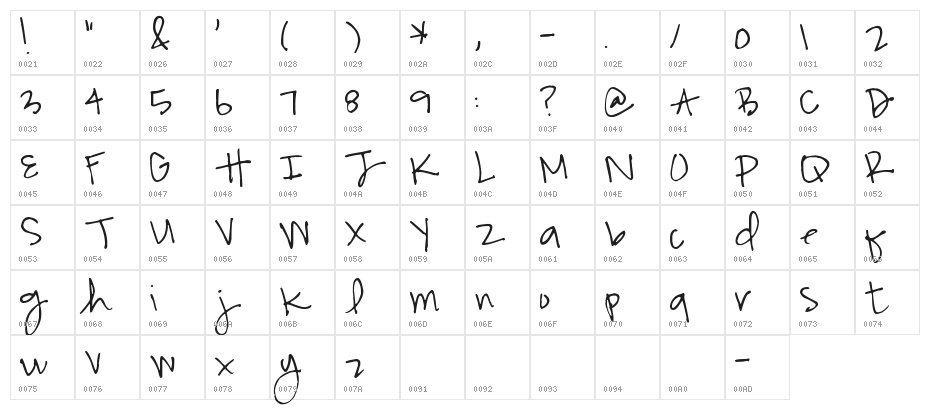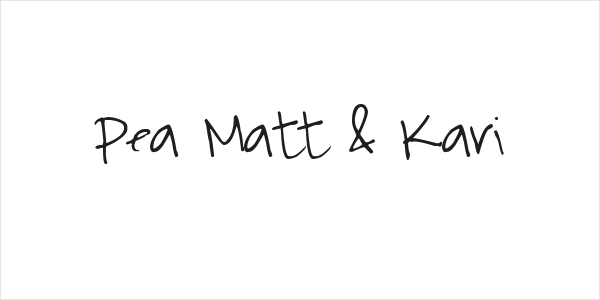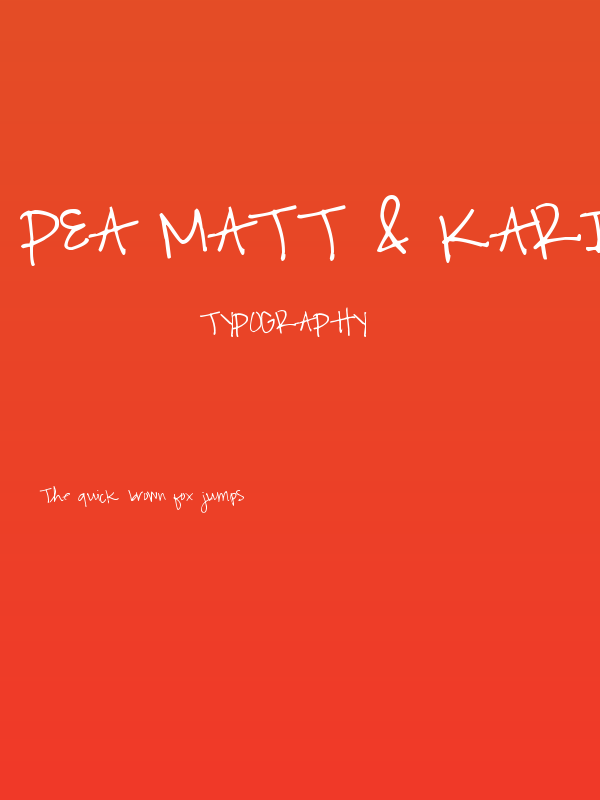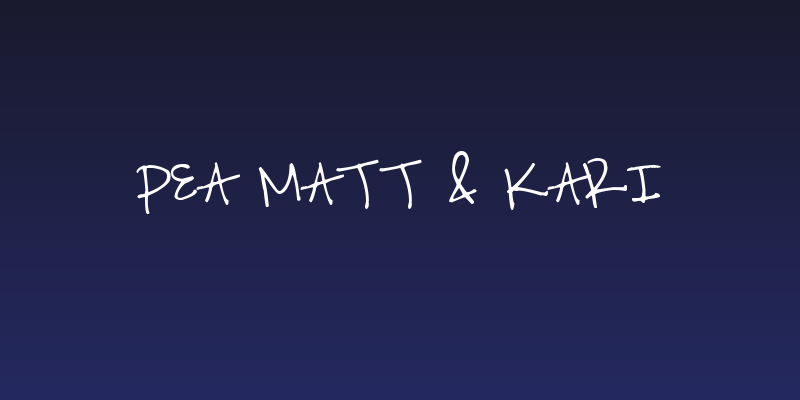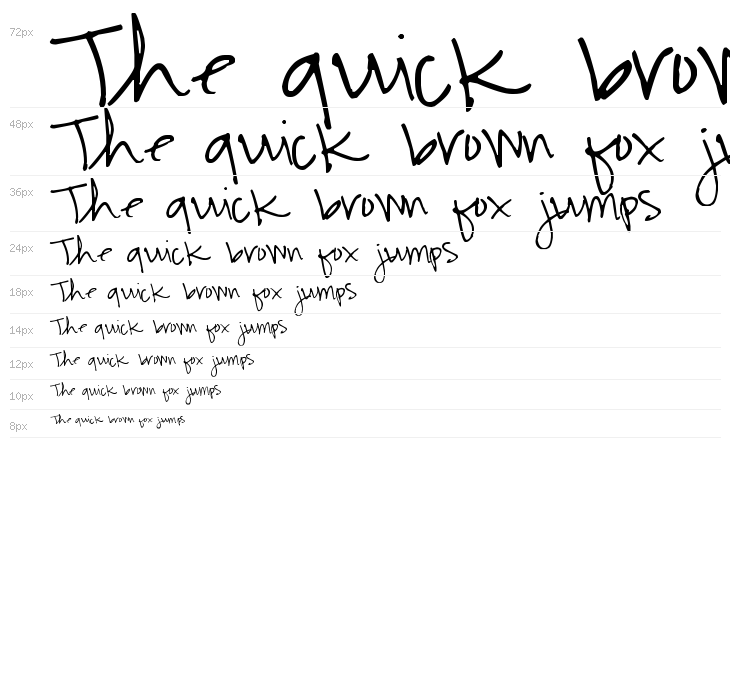
Pea Matt & Kari Font
Pea Matt & Kari Description
This font exhibits a playful and casual handwritten style, characterized by its loose and informal strokes. The letters are slightly slanted, giving a dynamic and lively appearance. The uppercase and lowercase letters maintain a consistent flow, with some letters featuring unique loops and curves that add personality. The numbers and special characters are crafted with the same whimsical touch, ensuring a cohesive look across all glyphs. The overall design is approachable and friendly, making it suitable for projects that require a personal and informal touch.
| Use Case | Headlines, Informal text, Personal projects |
| Proposed Projects | Ideal for greeting cards, personal notes, children's books, and informal branding projects. |